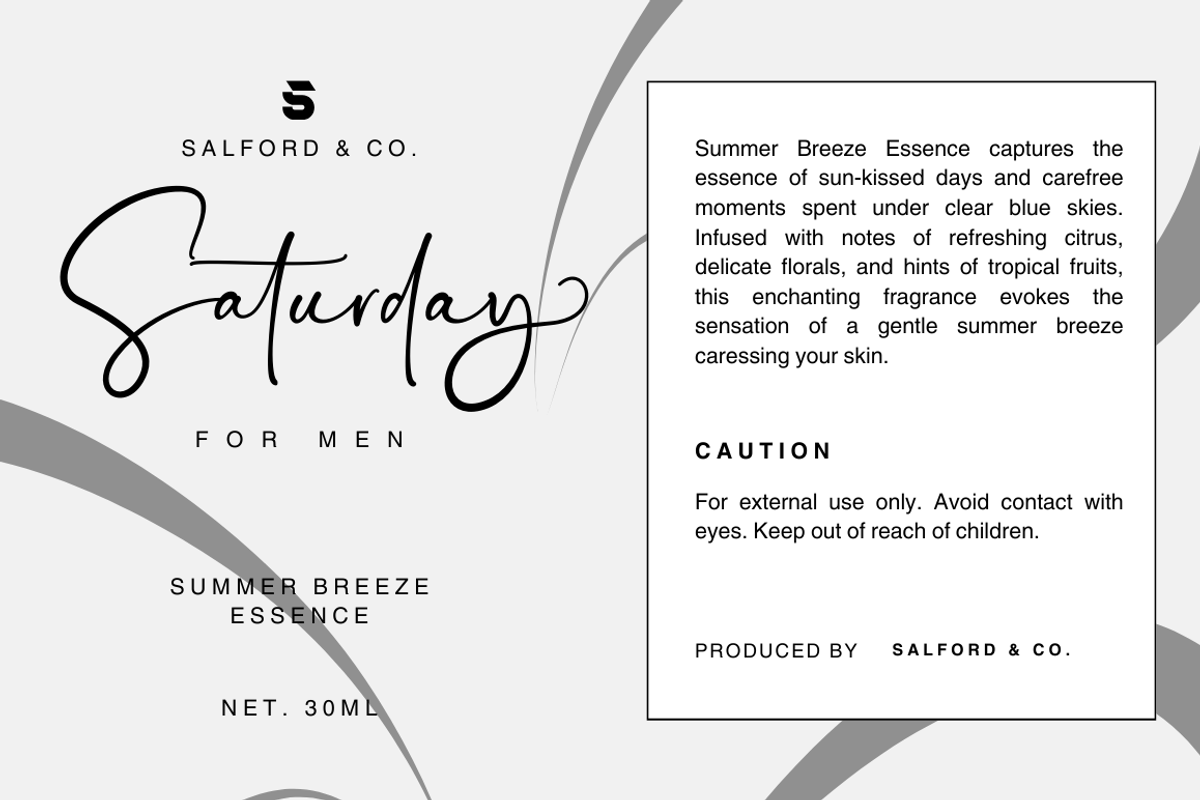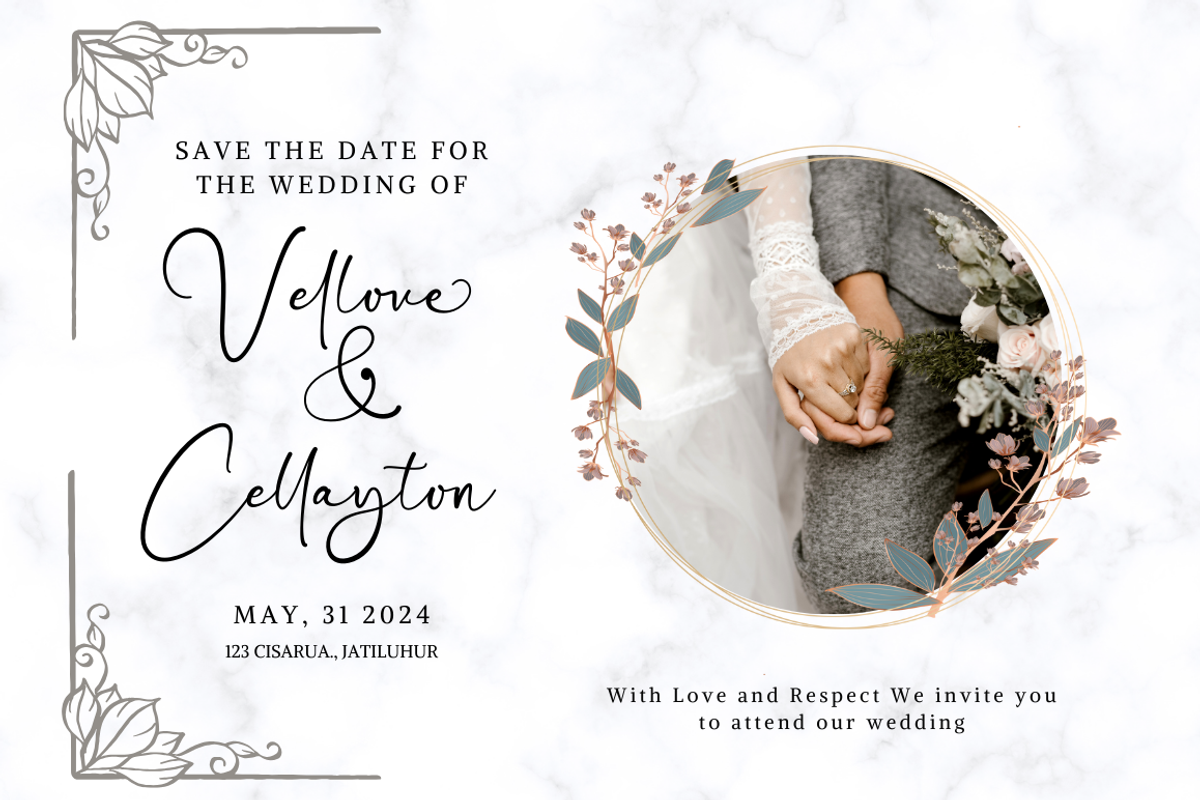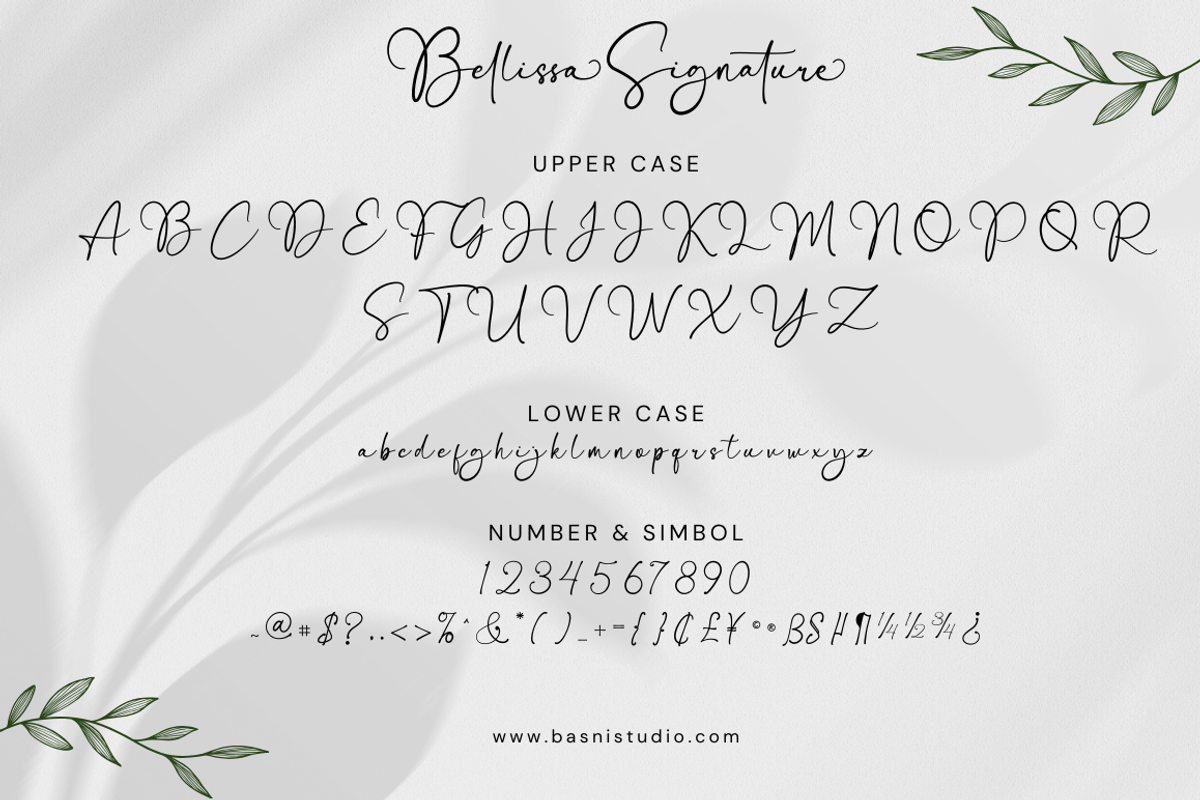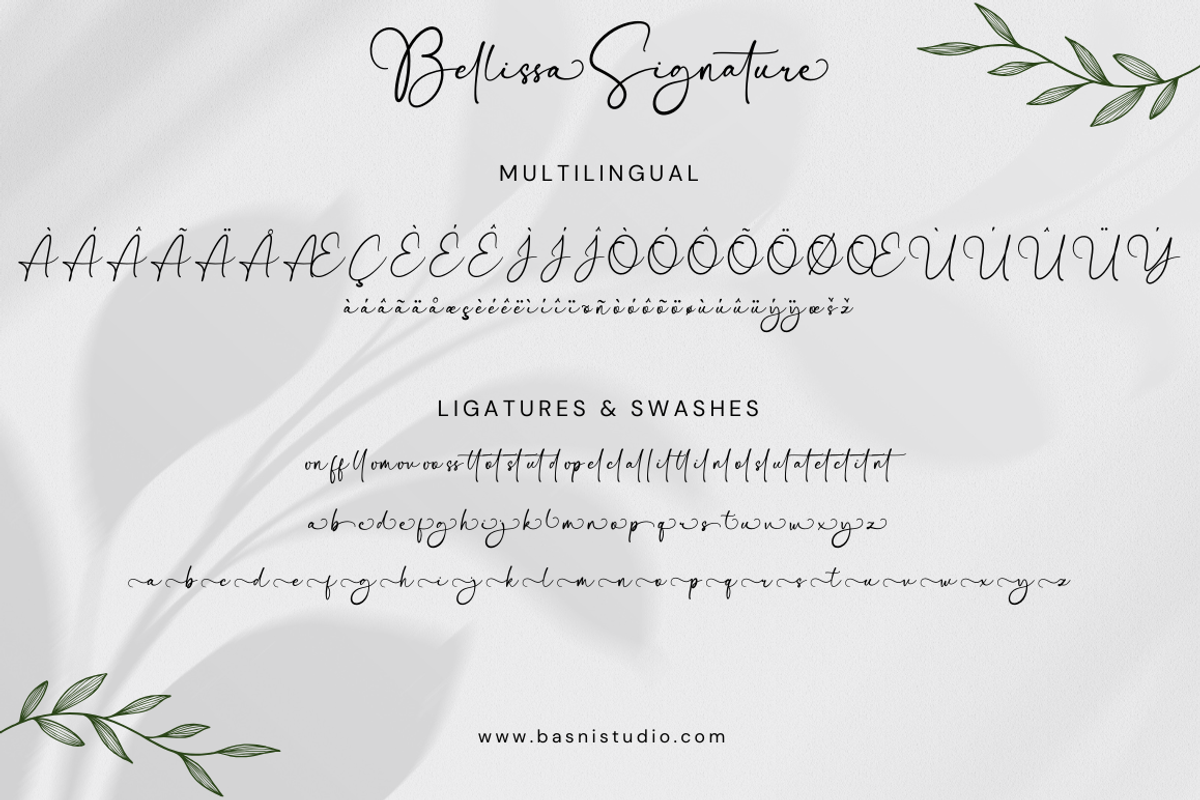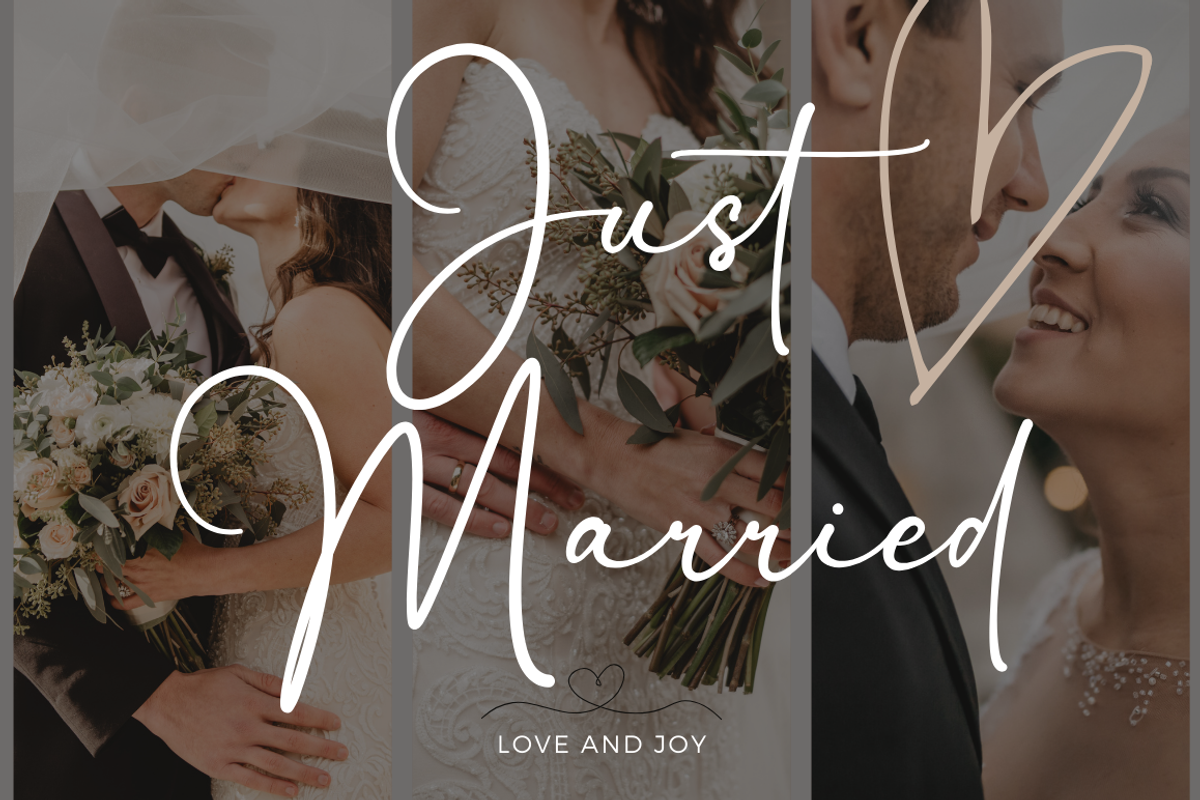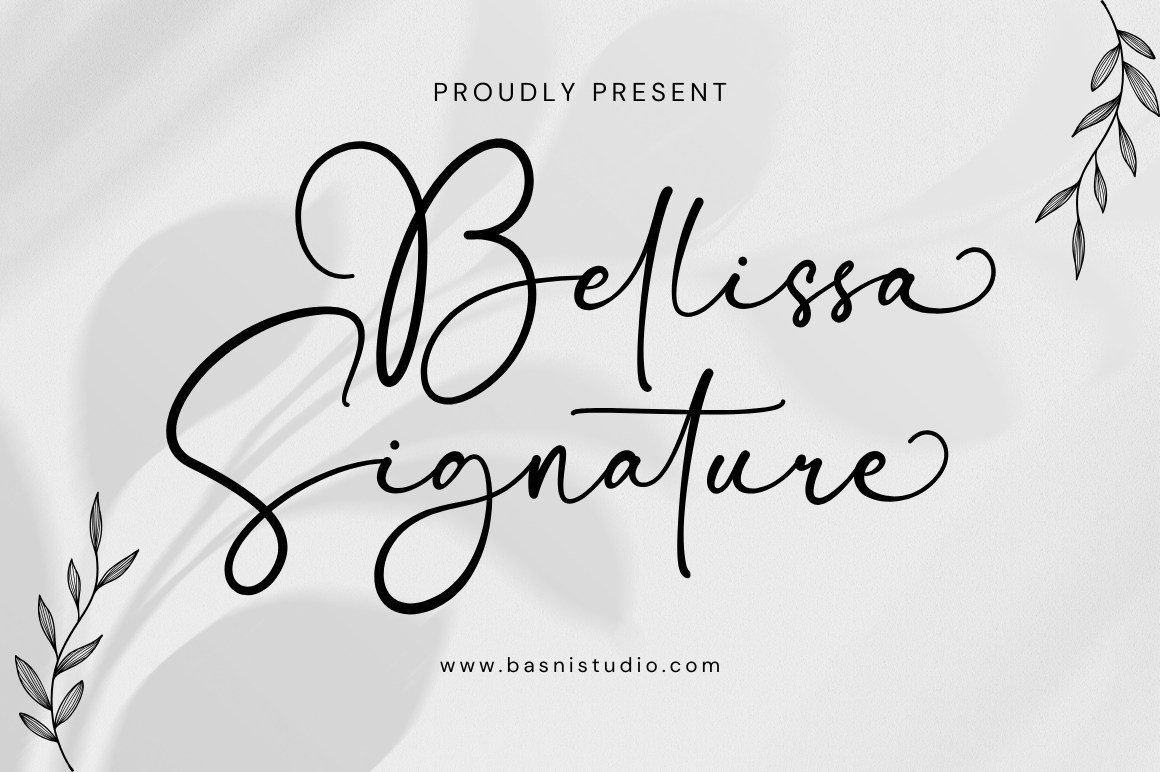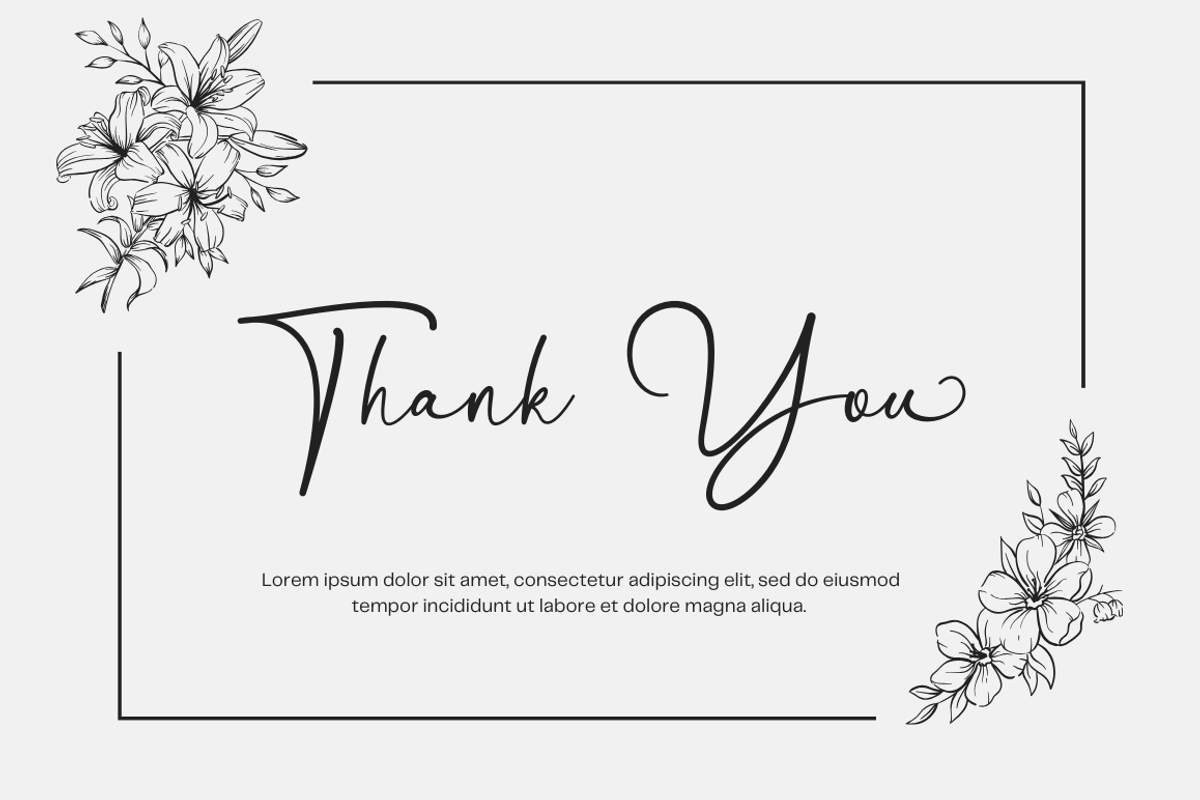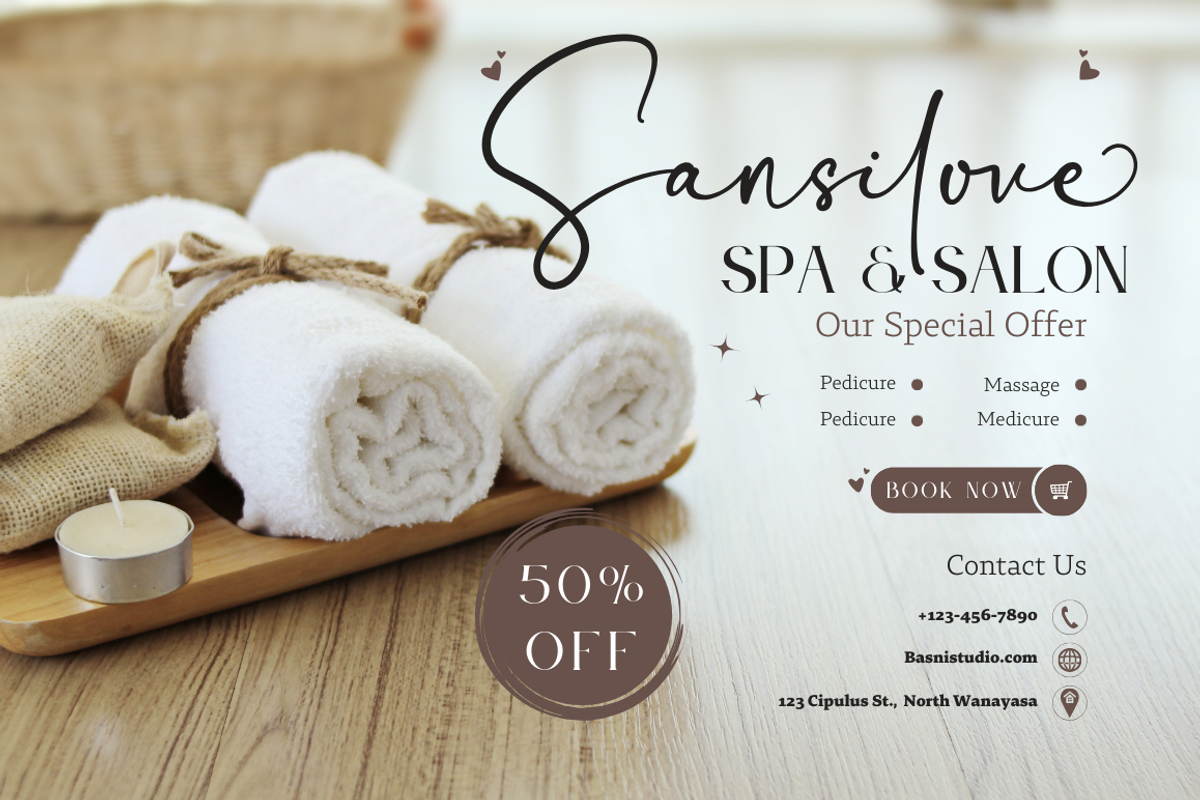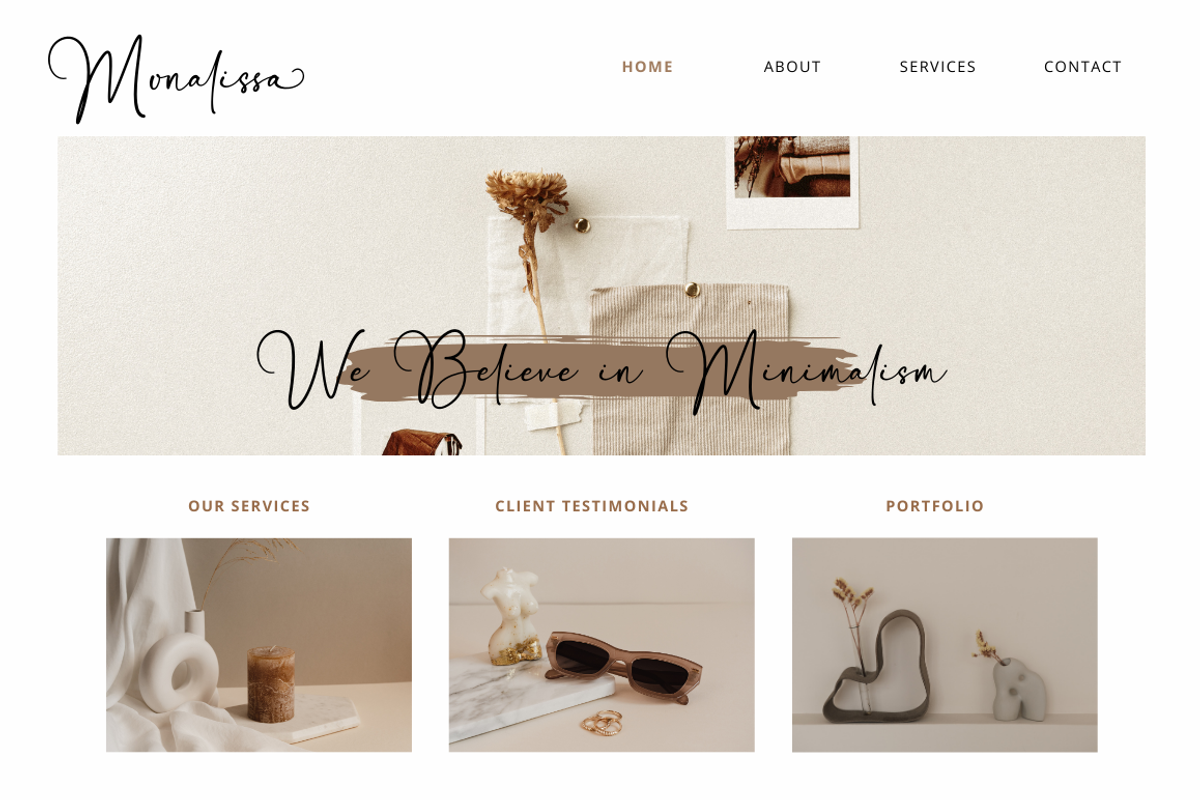
Bellissa Modern Signature Font
Introducing Bellissa Modern Signature Font
Bellissa Modern Signature Font, made with Naturaly & precision, perfect for branding, websites, and editorial designs. Includes all Characters letters, multilingual support, punctuation, binding. everything can be easily accessed using software that supports OpenType. What’s include: